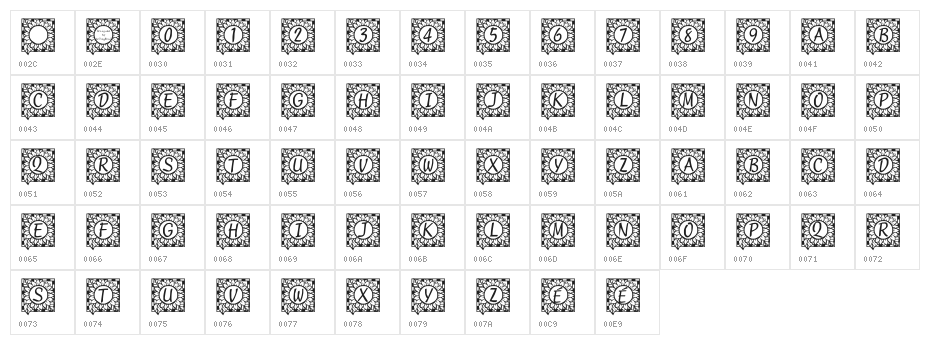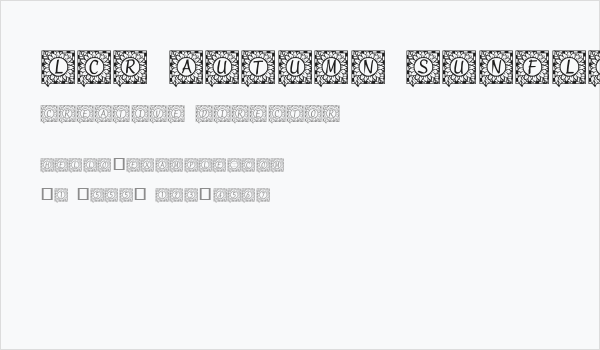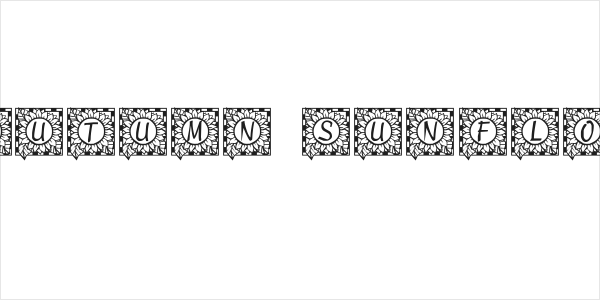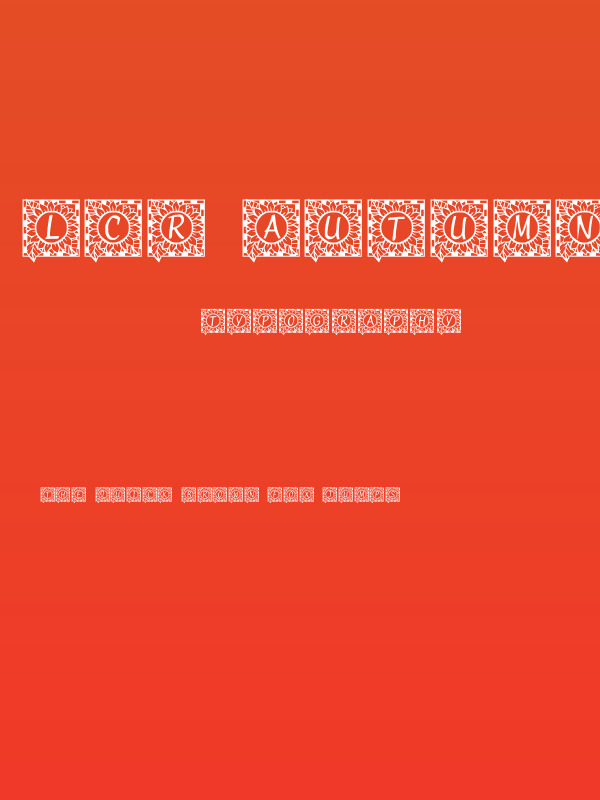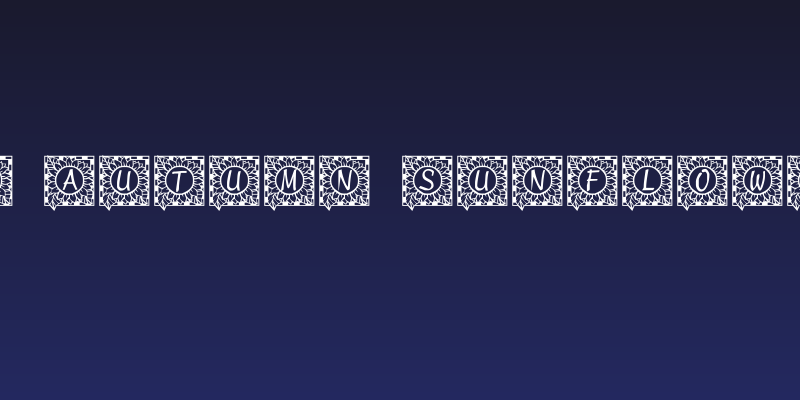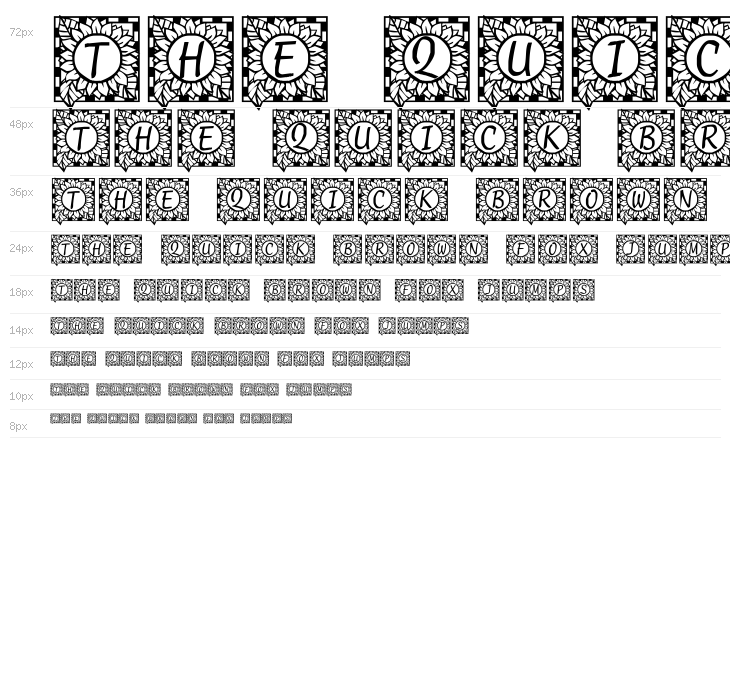
LCR Autumn Sunflowers Font
LCR Autumn Sunflowers Description
This decorative font features each character encased within a sunflower-themed border, giving it a unique and artistic appearance. The letters and numbers are bold and clear, set against a detailed floral background that adds a touch of elegance and whimsy. The intricate design of the sunflowers provides a striking contrast to the simplicity of the characters, making it ideal for creative and eye-catching projects. The font's playful yet sophisticated style makes it suitable for a variety of uses, from seasonal designs to personalized stationery.
| Use Case | Logos, Headlines, Artistic Projects |
| Proposed Projects | Ideal for greeting cards, invitations, seasonal decorations, and artistic posters. |